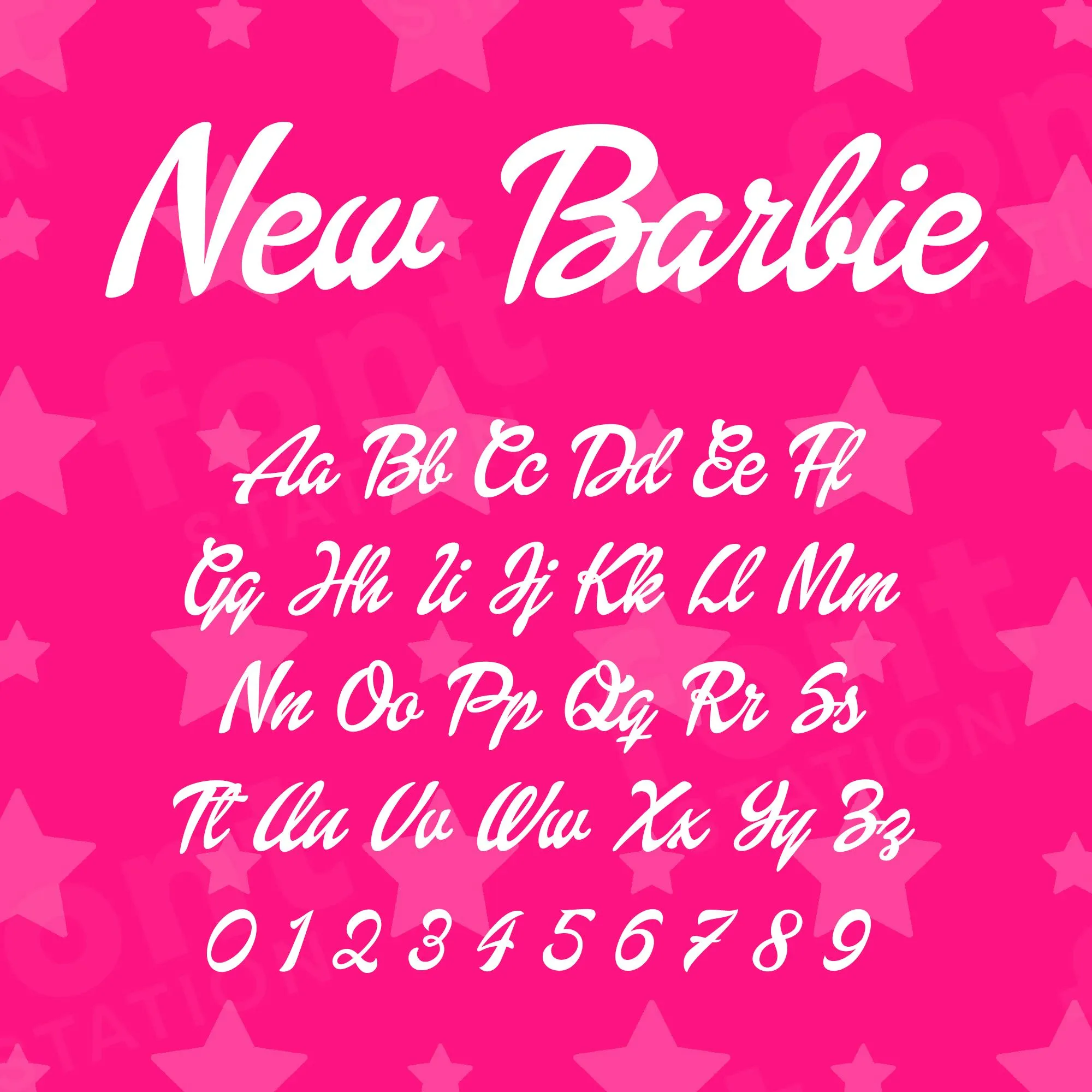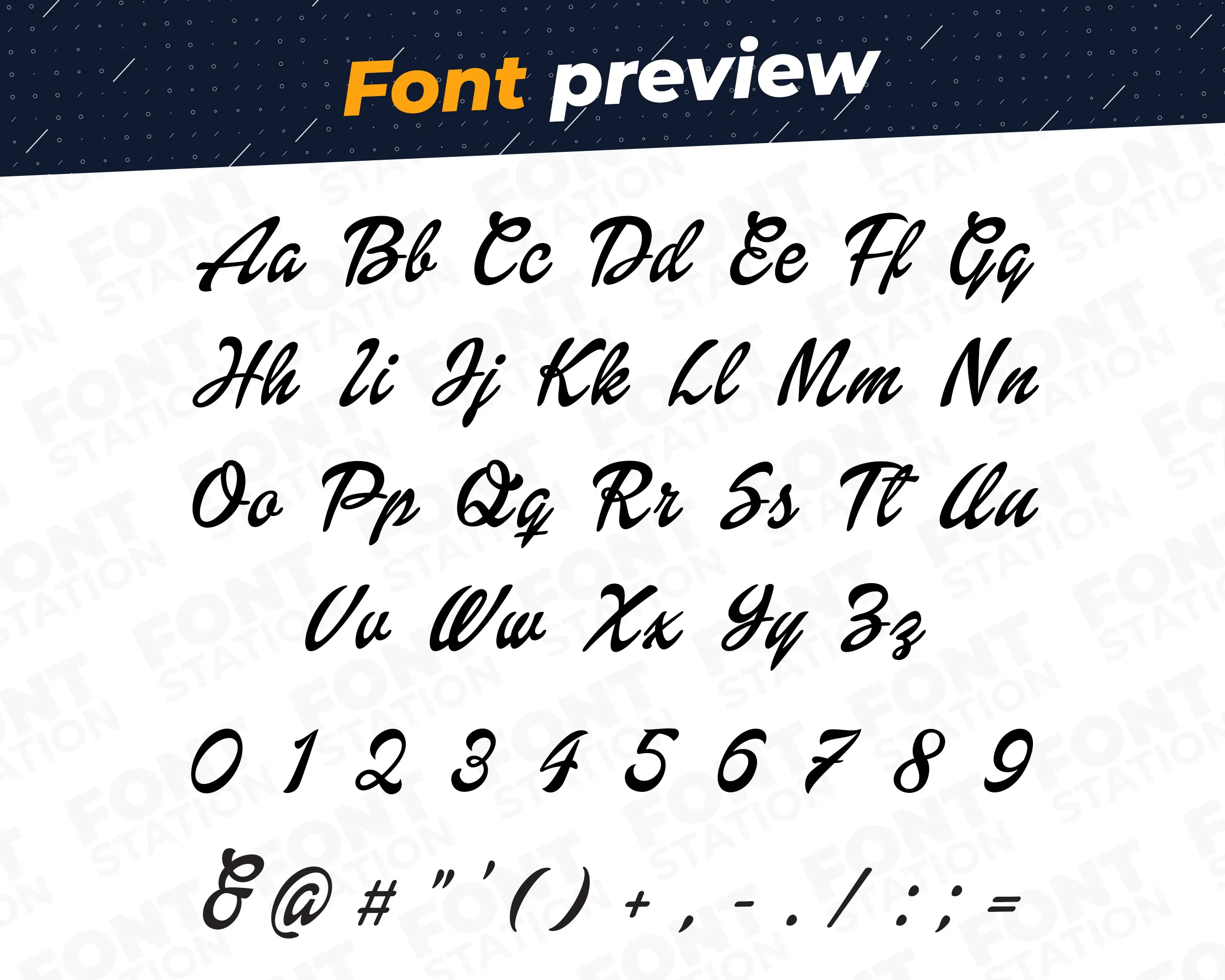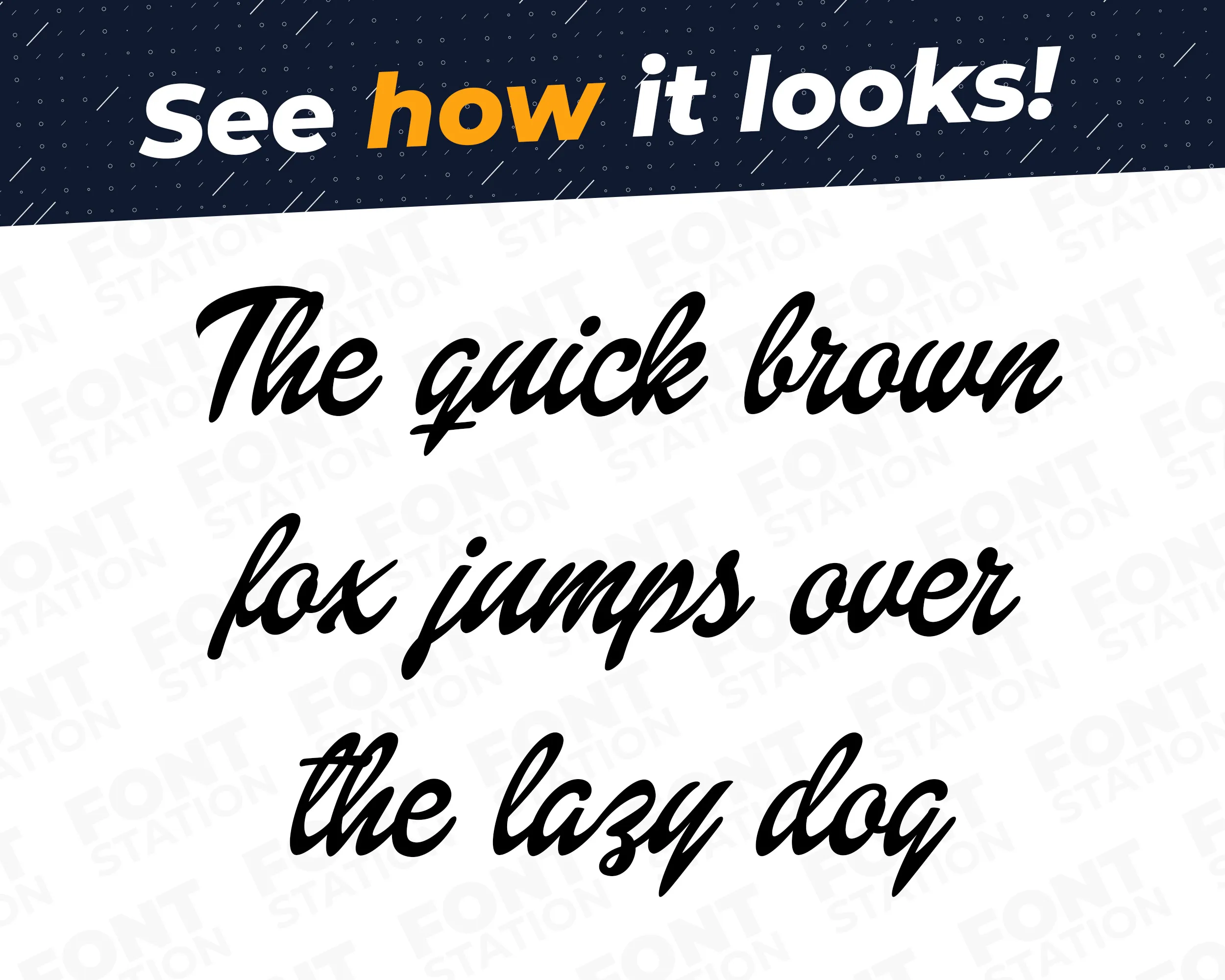
Our Dolly Princess typeface, inspired from New Barbie font
Image showing all characters available in the New Barbie font created by FontMaze.
New Barbie Font